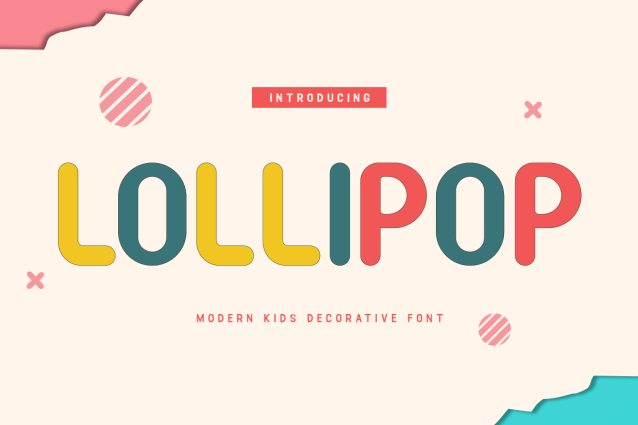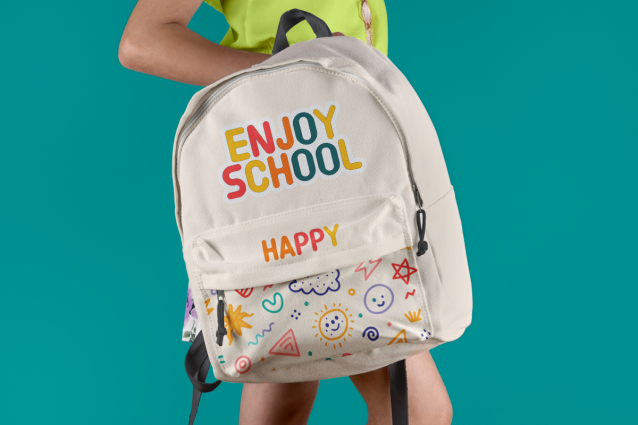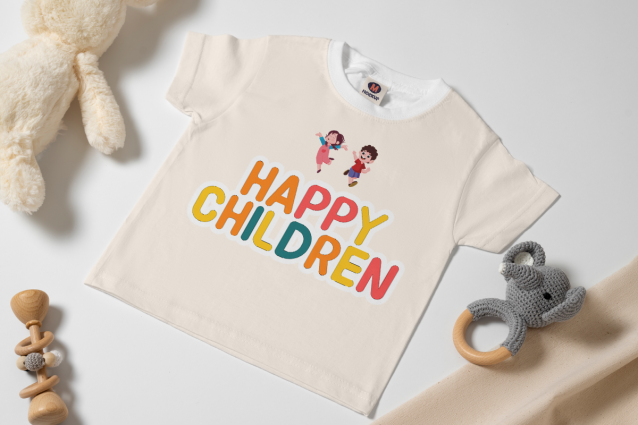
Lollipop Display Font
Lollipop Display Font a variety of font types that have interesting characteristics. This time, Lollipop A Modern Display Decorative Font is present as one of the best choices among other fonts. This font is a monoline sans serif with ornaments. Some of the letters are written in series and look beautiful. Lollipop A Modern Display Decorative Font is an illegible font. This type of font does not apply to prints that are too large or too small because it will reduce readability. Must be used with the appropriate font size so that it can provide a maximum attractive impression. Lollipop A Modern Display Decorative Font can be applied to several things, such as product branding. Can be used as a brand label, promotional poster, and shop sign. This font can be used digitally when you want to promote products on social media. In addition to products, this font can be used to promote a service, such as photography. Lollipop A Modern Display Decorative Font is one of the best fonts for quotes that contain motivation and encouragement. Beautiful letterforms will look great when combined with the right ornaments and colors. Our decorative font collection is compatible for use as Figma Fonts, Canva Fonts, Freepik Fonts, and Adobe Fonts. They also work as Windows and Apple Fonts. For your social media needs, you can use and install fonts in our Script & Signature font collection to use as Instagram Fonts, Facebook Fonts, and Twitter Fonts.